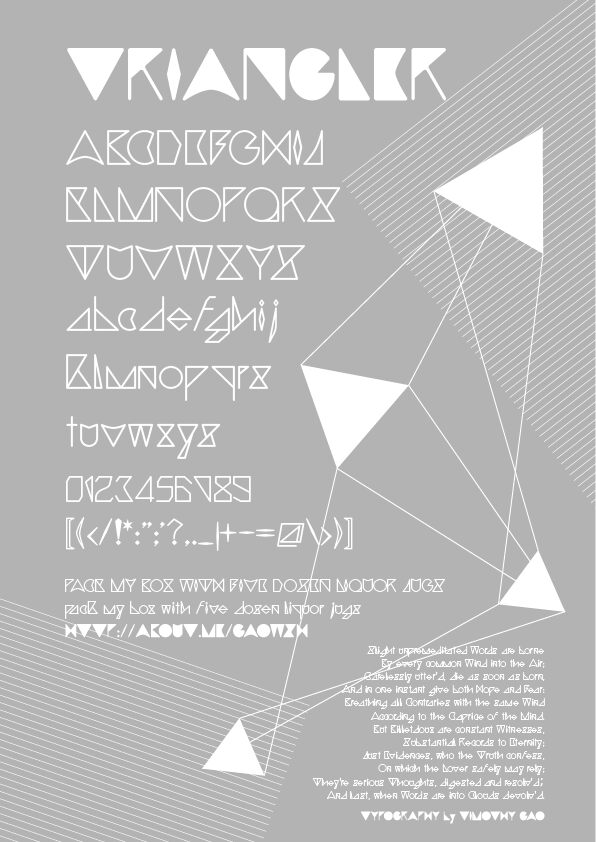
Triangler by Timothy Gao is a free futuristic display font shaped by sharp triangular geometry and open monoline forms. Its letters mix taut angles with broad curves, and unusual joins turn familiar characters into technical symbols.
Technology and speculative fiction are its clearest territory, especially in game interfaces and film posters. The skeletal forms also suit electronic music artwork and experimental fashion branding. In each setting, recurring triangles connect the text with circuitry, control panels, and geometric illustration.